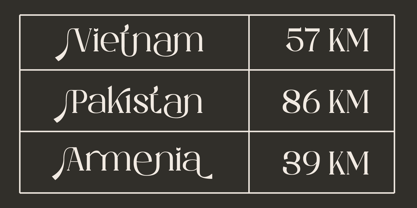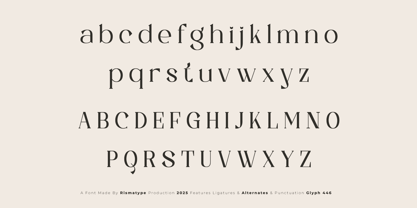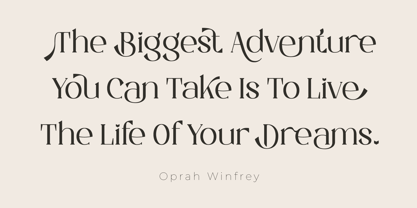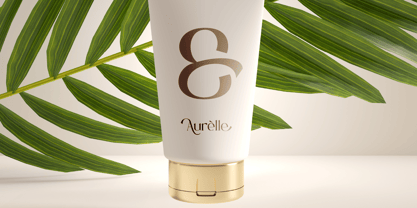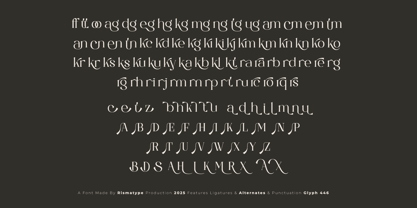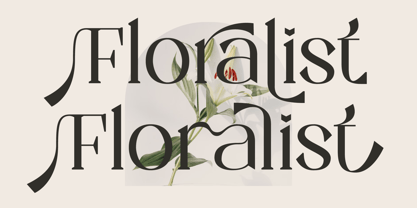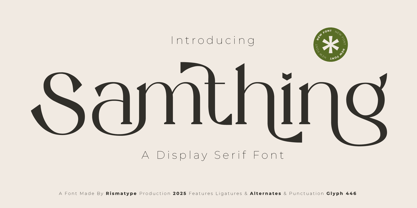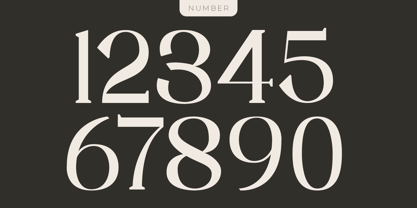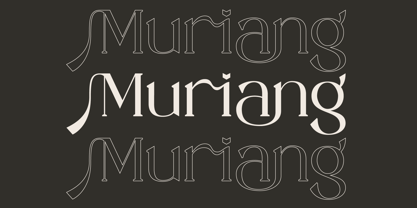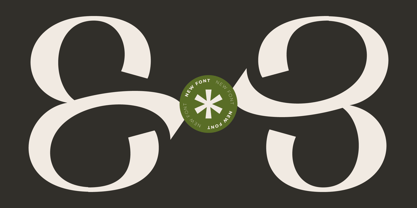
Samthing
by Risma Type
The Samthing Font Family was designed by Risma Mulyasari and published by Risma Type. Samthing contains 2 styles and family package options.
Samthing – A Display Serif Font Samthing is a bold and elegant display serif font designed to command attention while keeping a refined touch. With its stylish curves and balanced contrast, it brings timeless sophistication to any project. Perfect for headlines, branding, editorials, fashion labels, and logo design — Samthing adds a sense of class and confidence to your visuals. Add personality and modern charm to your typography with Samthing — where classic beauty meets contemporary design.
About Risma Type
Risma Type is a font design studio based in West Java, specializing in creating distinctive typefaces with both character and functionality. Founded by a stay-at-home mother with a deep passion for typography, every creation reflects dedication, artistry, and genuine love for design. At Risma Type, we believe every letter carries its own soul, combining aesthetics and usability to convey emotion, story, and identity. Through a modern approach and meticulous attention to detail, we craft fonts that are not only visually appealing but also effortless to use. Each typeface is created with heart and purpose, empowering designers to express their ideas with confidence, freedom, and meaning.